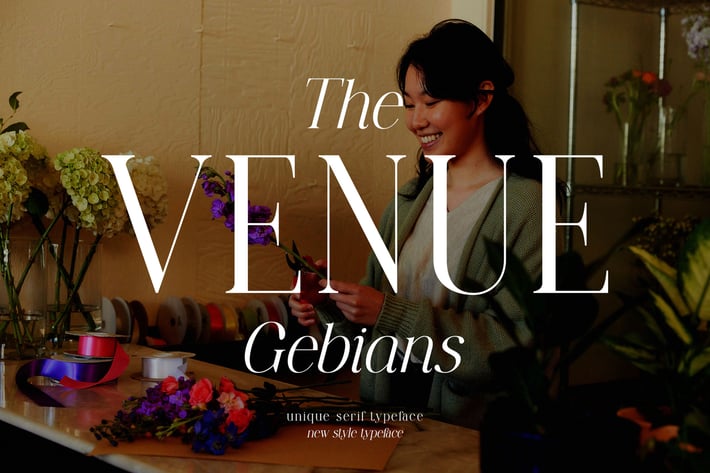
The VENUE Gebians Serif Typeface
The VENUE Gebians Modern Serif Typeface inspired by the famous minimalist logo perfect for the purposes of designing templates, brochures, videos, advertising branding, logos, invitation, layout design, elegant crafting, beauty design and other